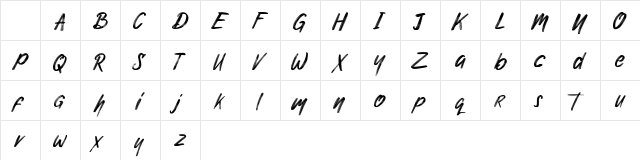
Complete Nuttyclash demo Regular glyph index. Displaying only characters natively supported by Nuttyclash demo Regular font.
Nuttyclash demo is a composed and adaptable typeface that performs quietly and consistently across a wide range of design contexts.
Pro Tip: Use Nuttyclash demo in both headline and body roles to test its range before committing to a single application.